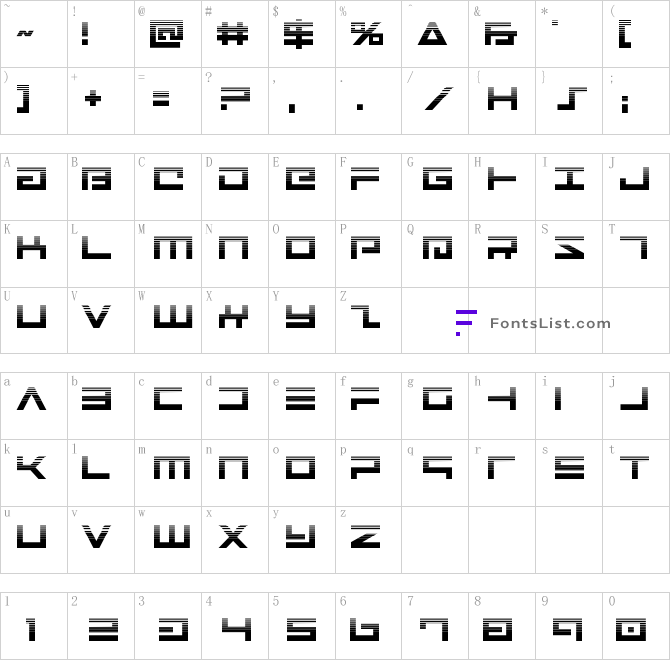
- Font Name:Avenger Haltone
Avenger-Haltone.ttf is a very beautiful artistic font, Avenger-Haltone.ttf is widely used in the design and printing of various books and pictures,Avenger-Haltone.ttf has a strong visual impact,Avenger-Haltone.ttf is a commonly used font in newspapers, magazines and books, and is used in posters, e-commerce Poster design, store design, logo design, font design and other fields.Avenger-Haltone.